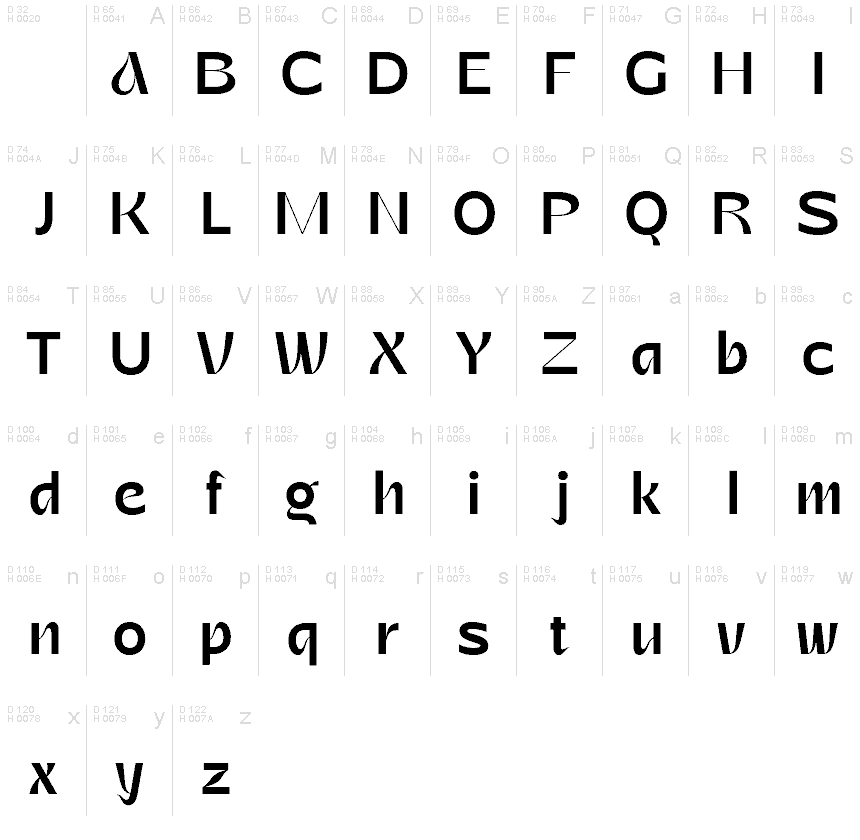
CS Carline Demo Regular
CS Carline font from Craft Supply Co. balances modern elements with vintage expanded styles. This free sans serif font features a sleek look achieved via geometric uniform proportions, subtle curvature, and similar minimalistic elements to great visual eye-catching effect.
Usable for making posters, stationery supplies, books or magazine titles, flyers designs. Usable within brand identities and logos tie-ins too.